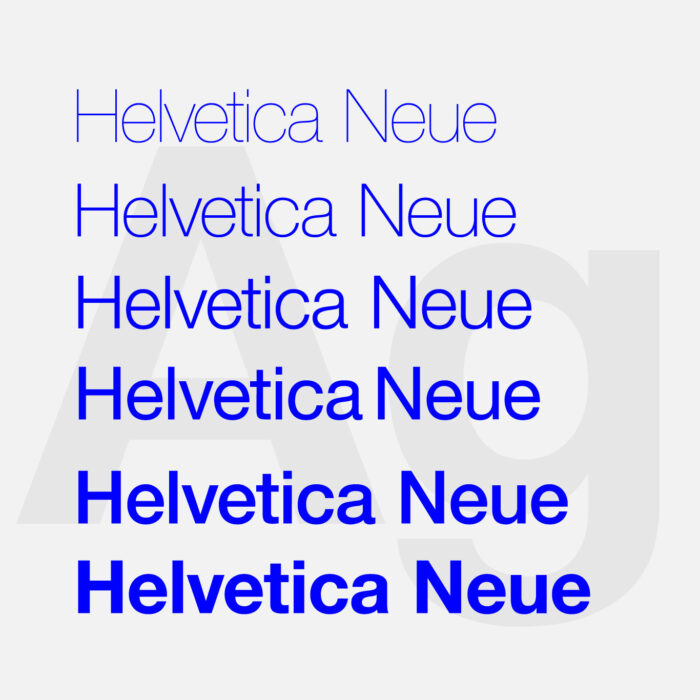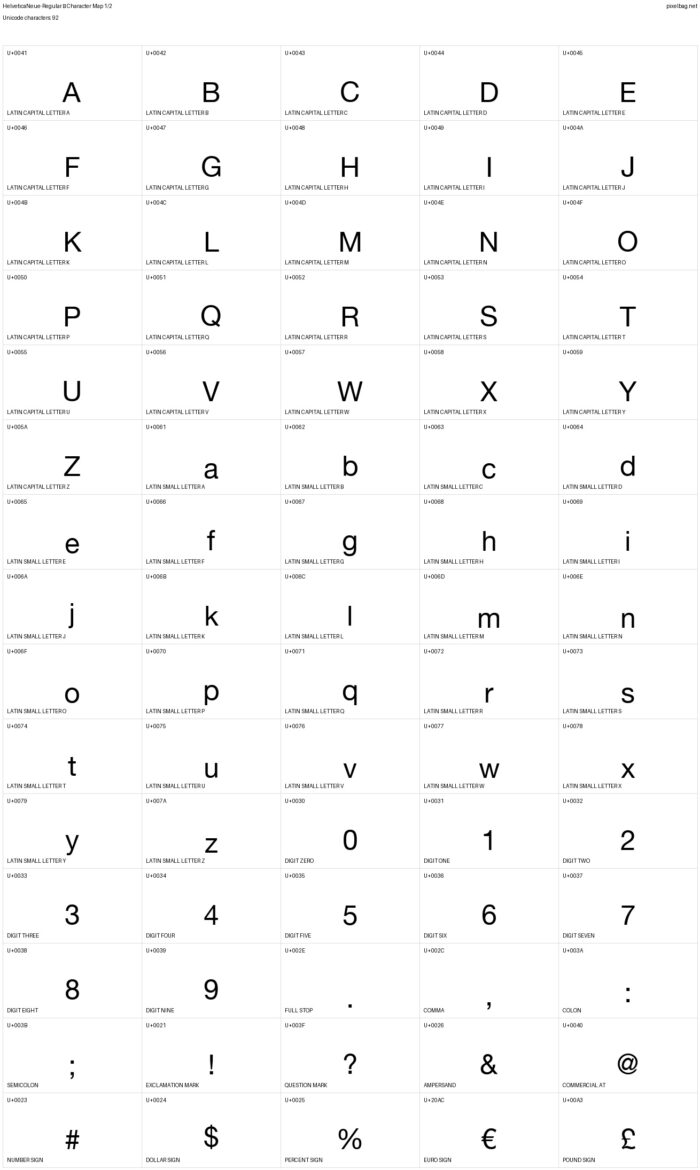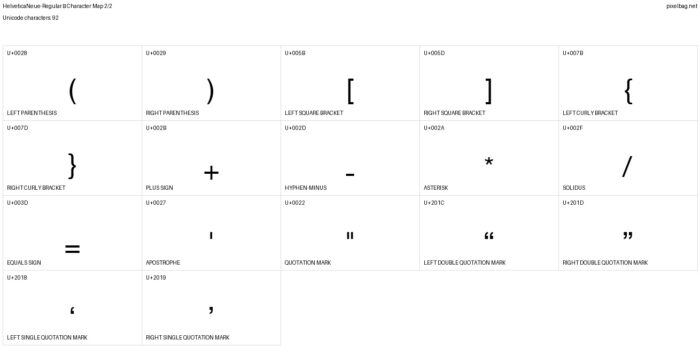
Helvetica Neue is a widely used neo-grotesque sans-serif typeface known for its neutral structure, clean spacing, and polished Swiss-style appearance. It works well for branding, UI design, editorial layouts, posters, packaging, signage, and presentation design.
The History of Helvetica Neue
The story of Helvetica Neue begins in 1957, when Swiss designer Max Miedinger, working under the direction of Eduard Hoffmann at the Haas Type Foundry in Basel, released a new sans-serif called Neue Haas Grotesk. It was drawn as a cleaner, more balanced take on the 19th-century grotesque sans-serifs already popular in Europe, particularly Berthold’s Akzidenz-Grotesk, which served as its main reference point. When Linotype began distributing the typeface internationally in 1960, “Neue Haas Grotesk” was judged too parochial for a global audience, so it was renamed Helvetica — an adaptation of “Helvetia,” the Latin name for Switzerland, chosen to trade on the country’s reputation for precision and modern design.
Over the following two decades, Helvetica’s popularity created a problem: as it was adapted for hot metal typesetting, then phototypesetting, then early digital formats, different weights ended up drawn by different people at different times, with inconsistent spacing, proportions, and stroke weight across the family. In 1983, Linotype’s subsidiary D. Stempel AG set out to fix this with a full rework of the entire family, released as Helvetica Neue. Design consultant Erik Spiekermann helped guide the project, characters were refined for better consistency and legibility (including widened crossbars on the lowercase “f” and “t”), and the family adopted a numeric weight-naming system inspired by Adrian Frutiger’s Univers, expanding to 51 total variants across eight weights, four widths, and matching italics.
Helvetica Neue’s reach exploded further in 1984, when Steve Jobs included it among the fonts bundled with the original Macintosh, and again through the 1980s and 90s as Linotype licensed it to IBM, Xerox, Adobe, and Apple, making it one of the core fonts of the PostScript printing standard. A 2004 update, Helvetica Neue Pro, added OpenType support and expanded language coverage. Today, the rights to Helvetica Neue sit with Monotype, which acquired Linotype in 2006.
Helvetica vs. Helvetica Neue vs. Neue Haas Grotesk
These three names get mixed up constantly, but they refer to three distinct typefaces built from the same lineage:
Helvetica refers to the original 1957 design and its immediate digital descendants — the version with the accumulated inconsistencies from decades of adaptation across different typesetting technologies.
Helvetica Neue (the family included in this download) is the 1983 rework that unified and refined the entire family, adopting the numeric weight system and becoming the standard version used across most modern software and operating systems.
Neue Haas Grotesk is a separate, more recent project: a 2010 revival led by type designer Christian Schwartz for Font Bureau, which went back to the original 1957 phototype masters rather than building on the Linotype lineage. It restores some of the warmth and character that later refinements smoothed away, giving it a slightly less rigid, more organic feel than Helvetica Neue.
For most everyday design work, Helvetica Neue — the version in this download — is the safest, most broadly compatible choice, since it’s the version used across the vast majority of software, operating systems, and existing brand guidelines.
Helvetica Neue Character Map
Design Characteristics
Helvetica Neue is defined by a tall x-height, tight letter spacing, and strokes that terminate on strictly horizontal or vertical lines rather than diagonals — a combination that gives it a dense, uniform, highly legible appearance at a distance. Its capitals are wide and evenly proportioned, particularly noticeable in letters like “E” and “F,” and it uses an oblique rather than a true italic, a common trait among neo-grotesque sans-serifs. This neutrality is precisely what Miedinger and Hoffmann set out to achieve: a typeface with no inherent symbolic meaning, letting the content it displays speak for itself.
Where Helvetica Neue Is Used
Few typefaces have been adopted as widely across as many industries. Lufthansa, Nestlé, BMW, Motorola, Skype, and Panasonic have all used Helvetica or Helvetica Neue in their corporate identity at various points, and American Airlines used it in its logo from Massimo Vignelli’s 1967 redesign until switching to a custom typeface in 2013. It’s the primary signage typeface of the New York City Subway and has been used by government bodies including NASA and the European Union. Before Apple developed its own San Francisco typeface, Helvetica Neue served as the system font across iOS, iPadOS, and macOS.